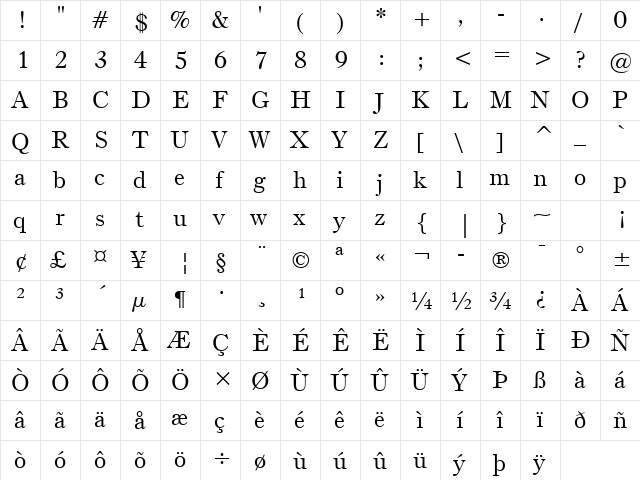
BruceOldStyle BT Roman
Design Context for BruceOldStyle BT Typeface
BruceOldStyle BT carries the refined structure of traditional serif typography, with bracketed terminals and considered proportions that communicate credibility and craft.
Pro Tip: Set BruceOldStyle BT with slightly loose tracking in headlines to let each letterform's detail read clearly at display sizes.